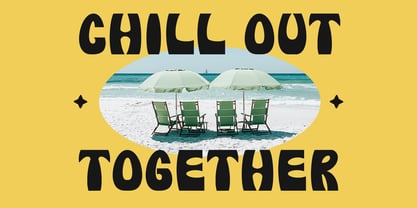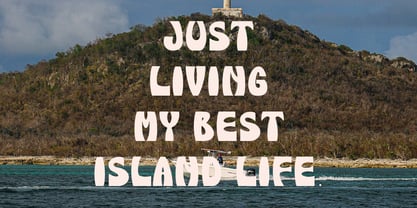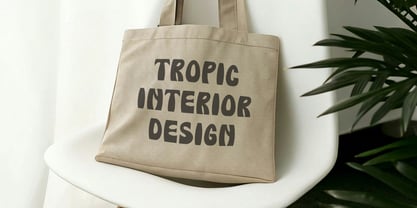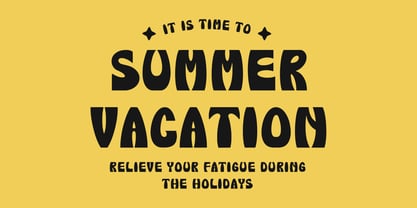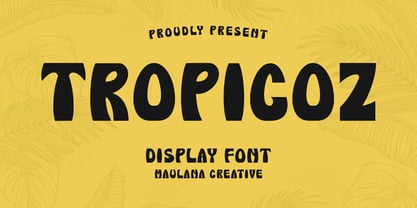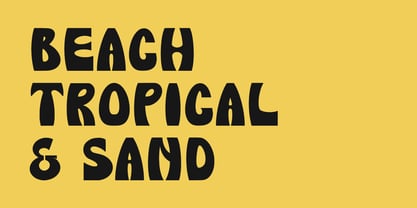
MC Tropicoz
by Maulana Creative
The MC Tropicoz Font Family was designed by Gilang Maulana and published by Maulana Creative. MC Tropicoz contains 1 styles. More about this family
Tropicoz is a style holiday display font. Fun character awesome for seasonal design. To give you an extra creative work. Tropicoz font support multilingual more than 100+ language. This font is good for logo design, Social media, Movie Titles, Books Titles, a short text even a long text letter and good for your secondary text font with sans or serif. Make a stunning work with Tropicoz font.
Designers: Gilang Maulana
Foundry: Maulana Creative